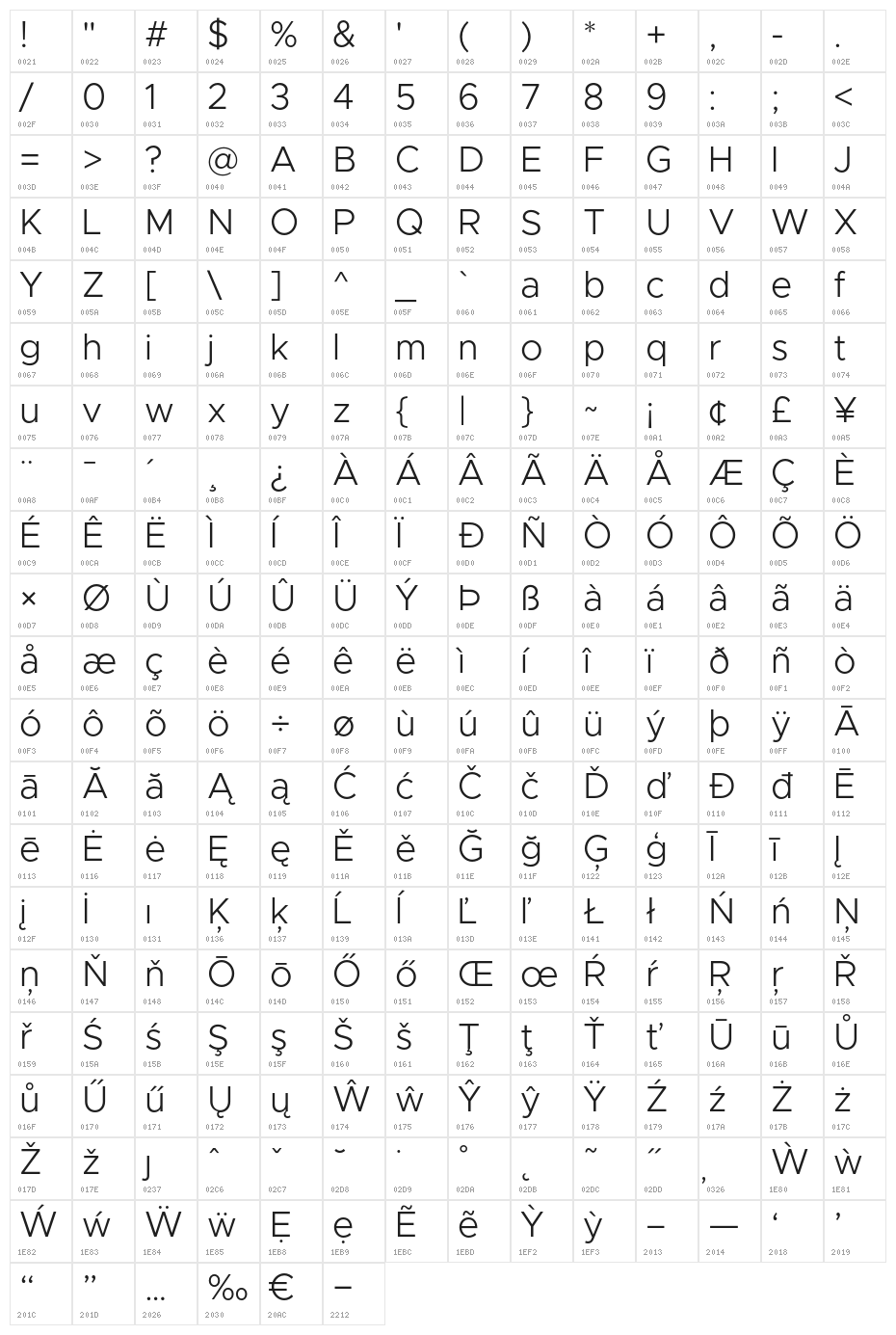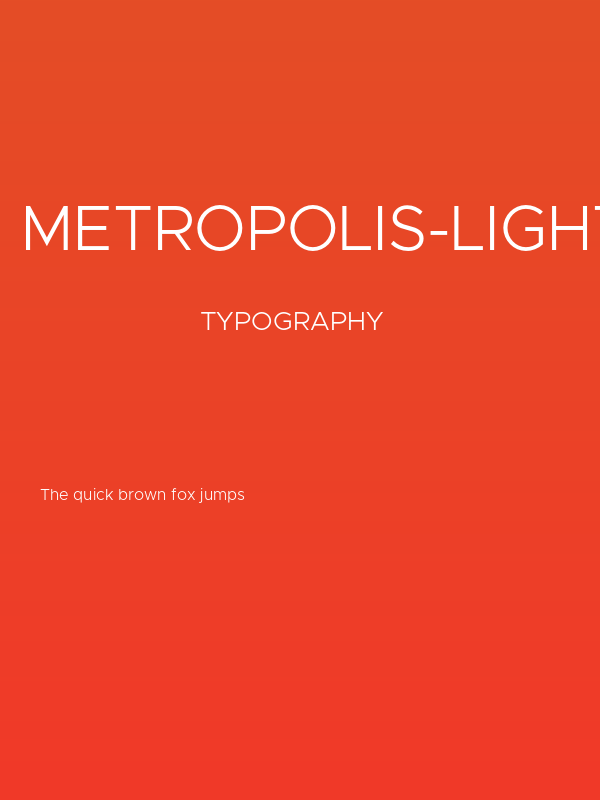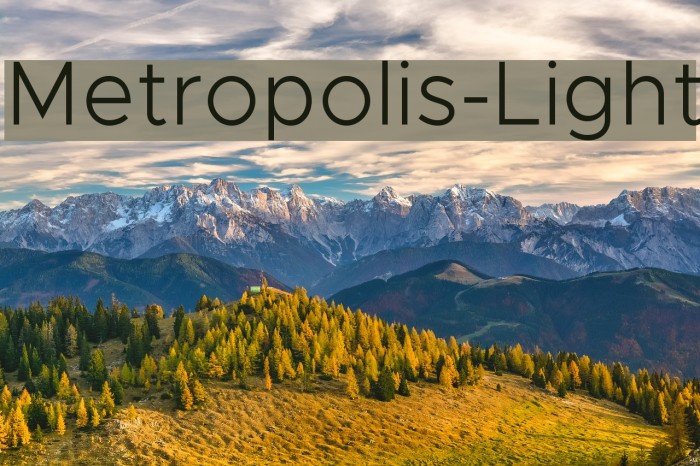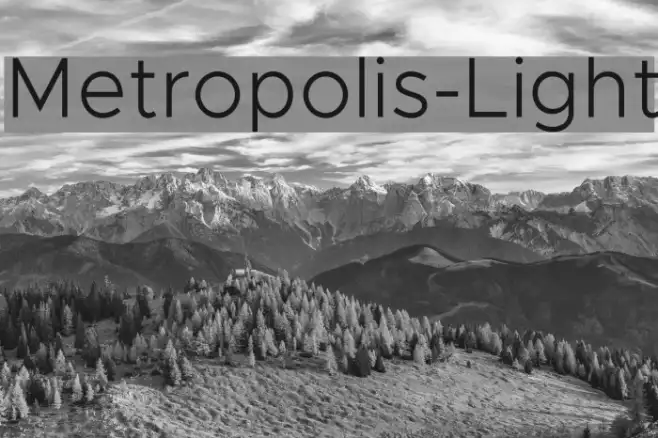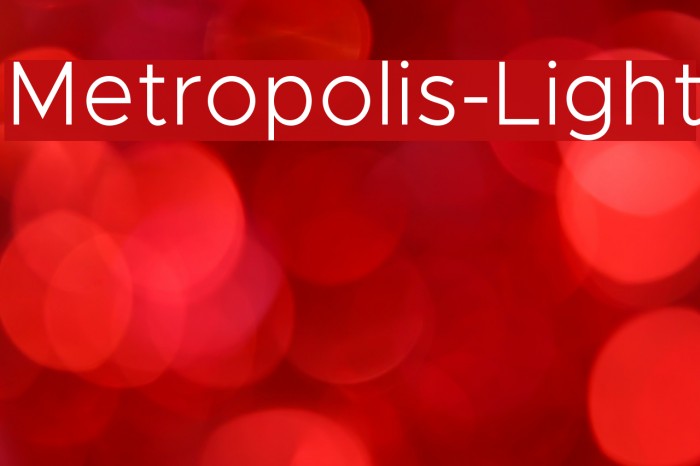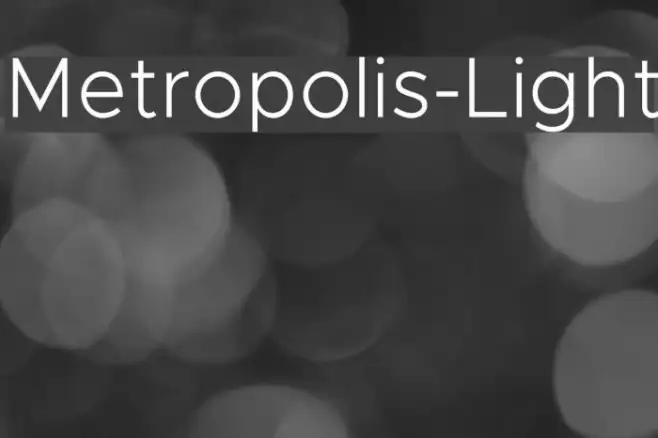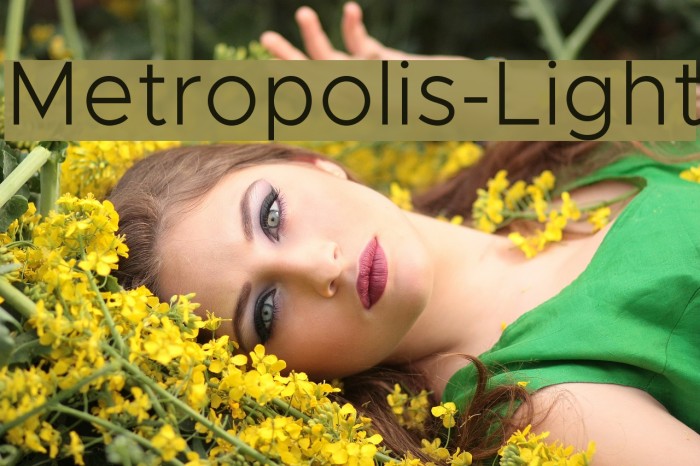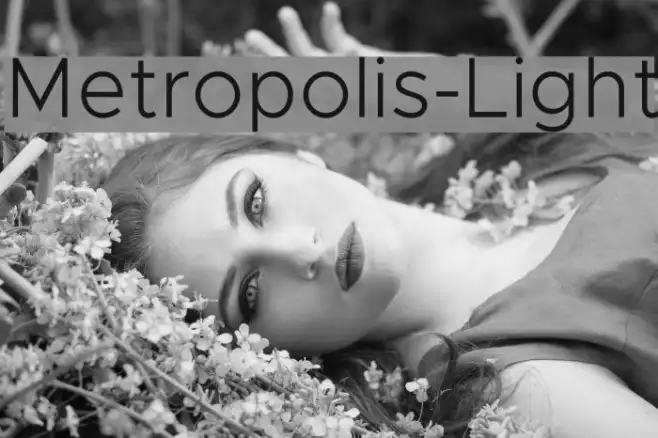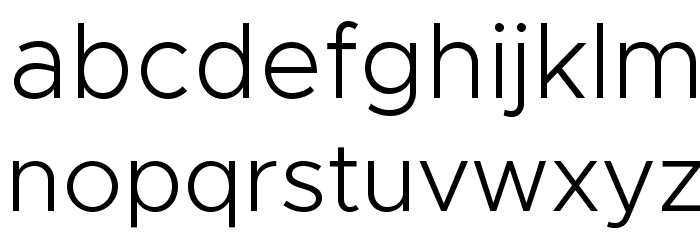
Metropolis-Light Font
Metropolis-Light Description
This font features a clean and modern sans-serif design, characterized by its geometric shapes and uniform stroke widths. The uppercase letters are bold and well-defined, while the lowercase letters maintain a consistent height and spacing, creating a harmonious appearance. The numerals are clear and easy to read, making them suitable for various applications. Special characters are designed with the same attention to detail, ensuring they blend seamlessly with the rest of the typeface. Overall, this font exudes a sense of simplicity and elegance, making it versatile for both digital and print media.
| Use Case | Headlines, Body text, Logos |
| Proposed Projects | Ideal for branding, web design, advertising, and editorial layouts. |